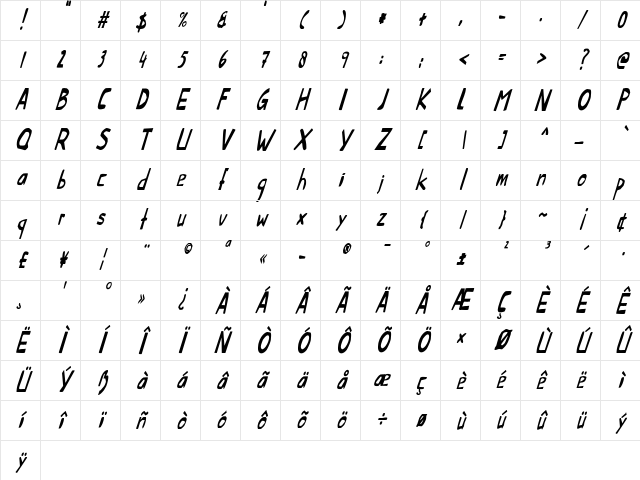
This Little Piggy Condensed Italic
Foundry: David Kerkhoff
Designer: David Kerkhoff
Design Context for This Little Piggy
This Little Piggy is a composed and adaptable typeface that performs quietly and consistently across a wide range of design contexts. The slanted form adds forward momentum and visual energy. Its narrow stance lets it pack a punch even in space-constrained designs.
Pro Tip: Use This Little Piggy for emphasis, pull quotes, and subheadings where its slanted energy can add rhythm to the layout.